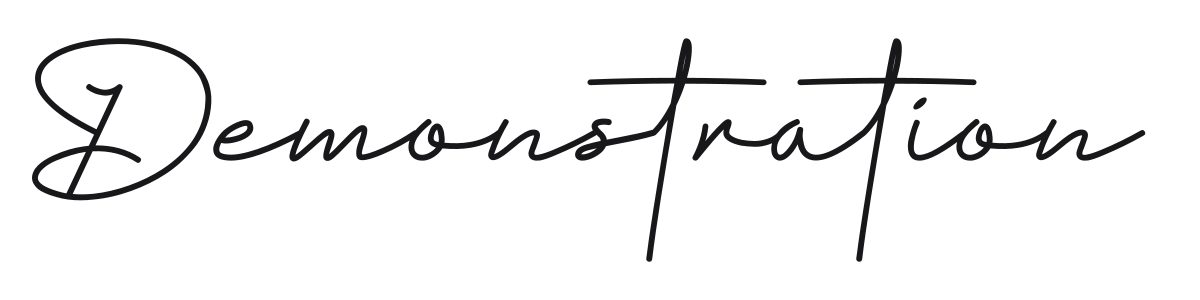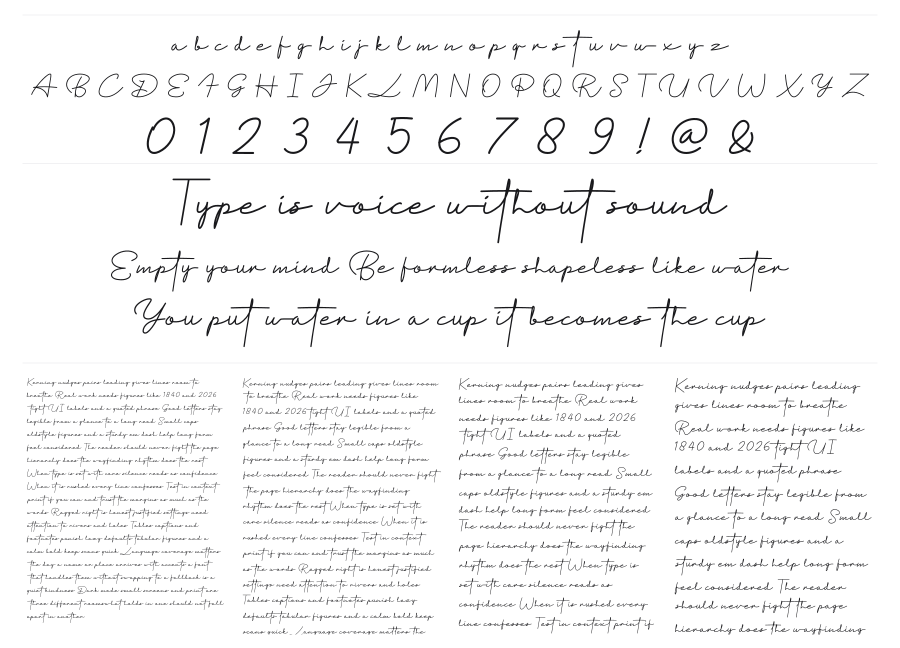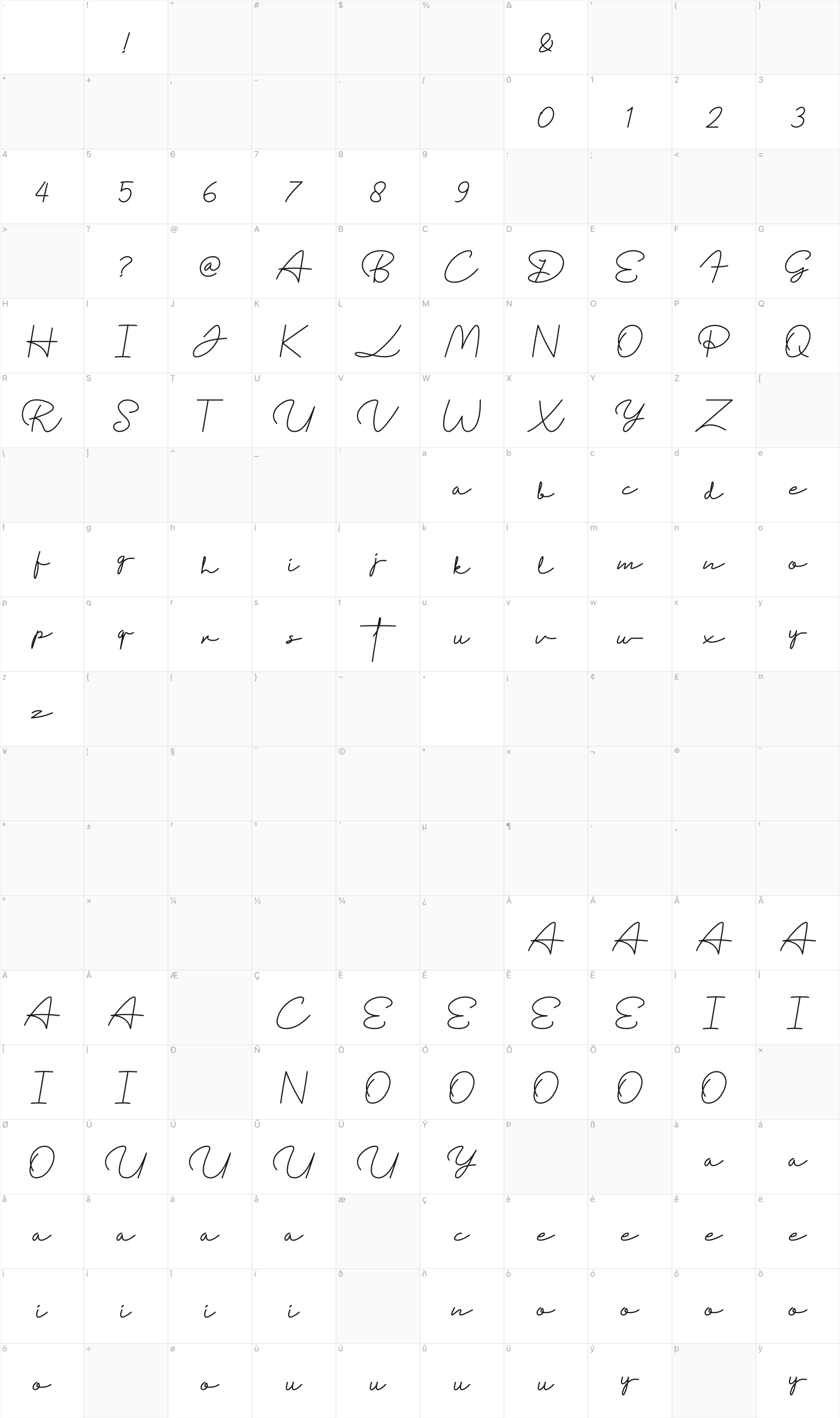
Demonstration
Demonstration is a casual connected script with thin, flowing strokes that feel like a relaxed signature dashed off in pen. The continuous connections and gently wandering baseline give it an effortless, natural rhythm without tipping into formal calligraphy. It works well for branding, packaging, and anywhere a friendly handwritten touch is needed.